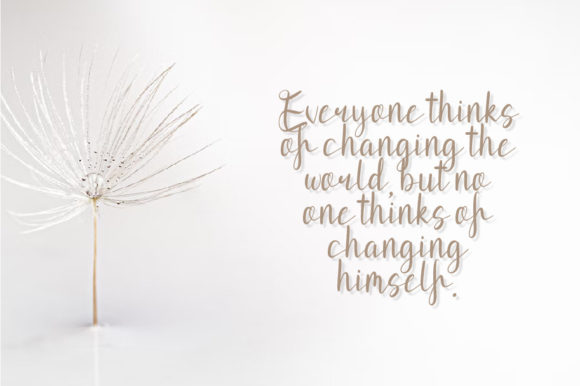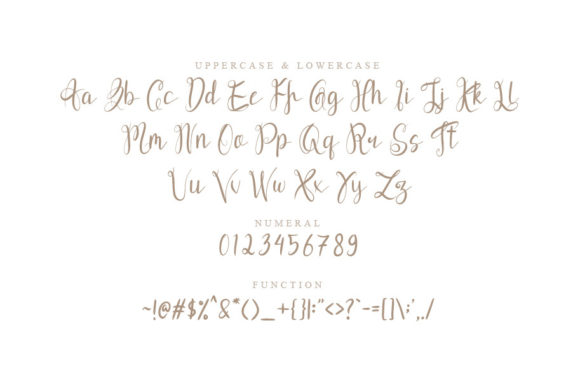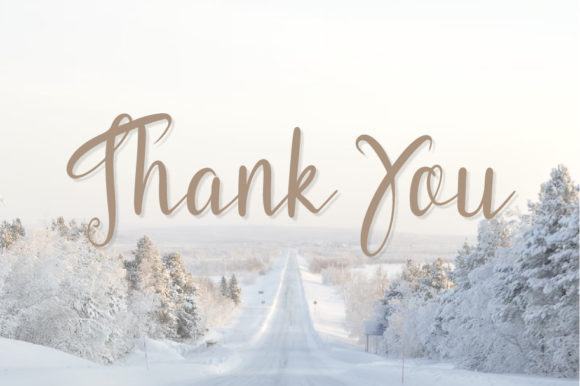
About Qufiz Script Font
Qufiz Script is a lovely and timeless handwritten font. It is the best choice for creating eye catching logos, branding and quotes. Every letter has a unique and beautiful touch, which will make your design come alive!